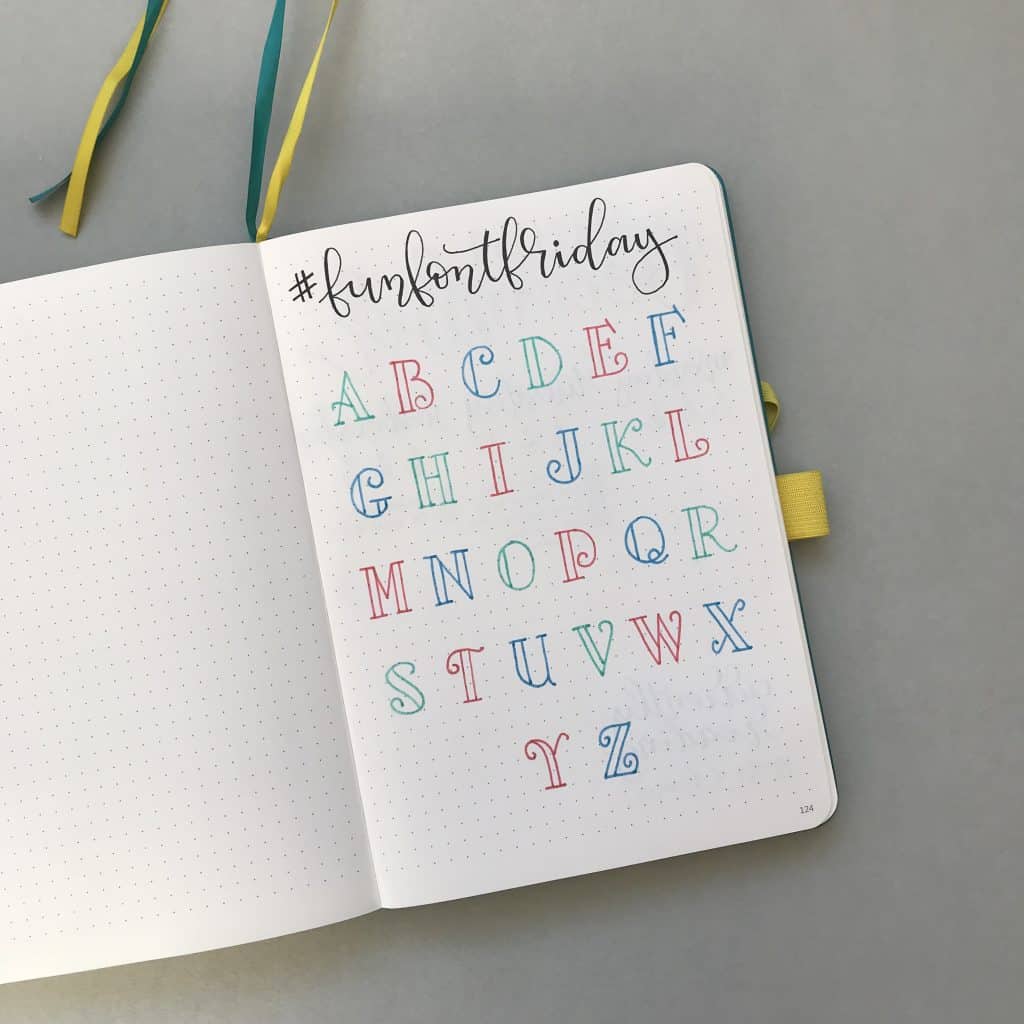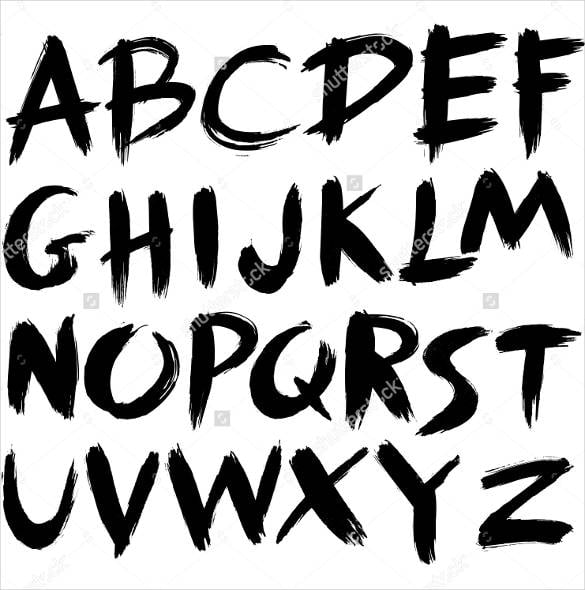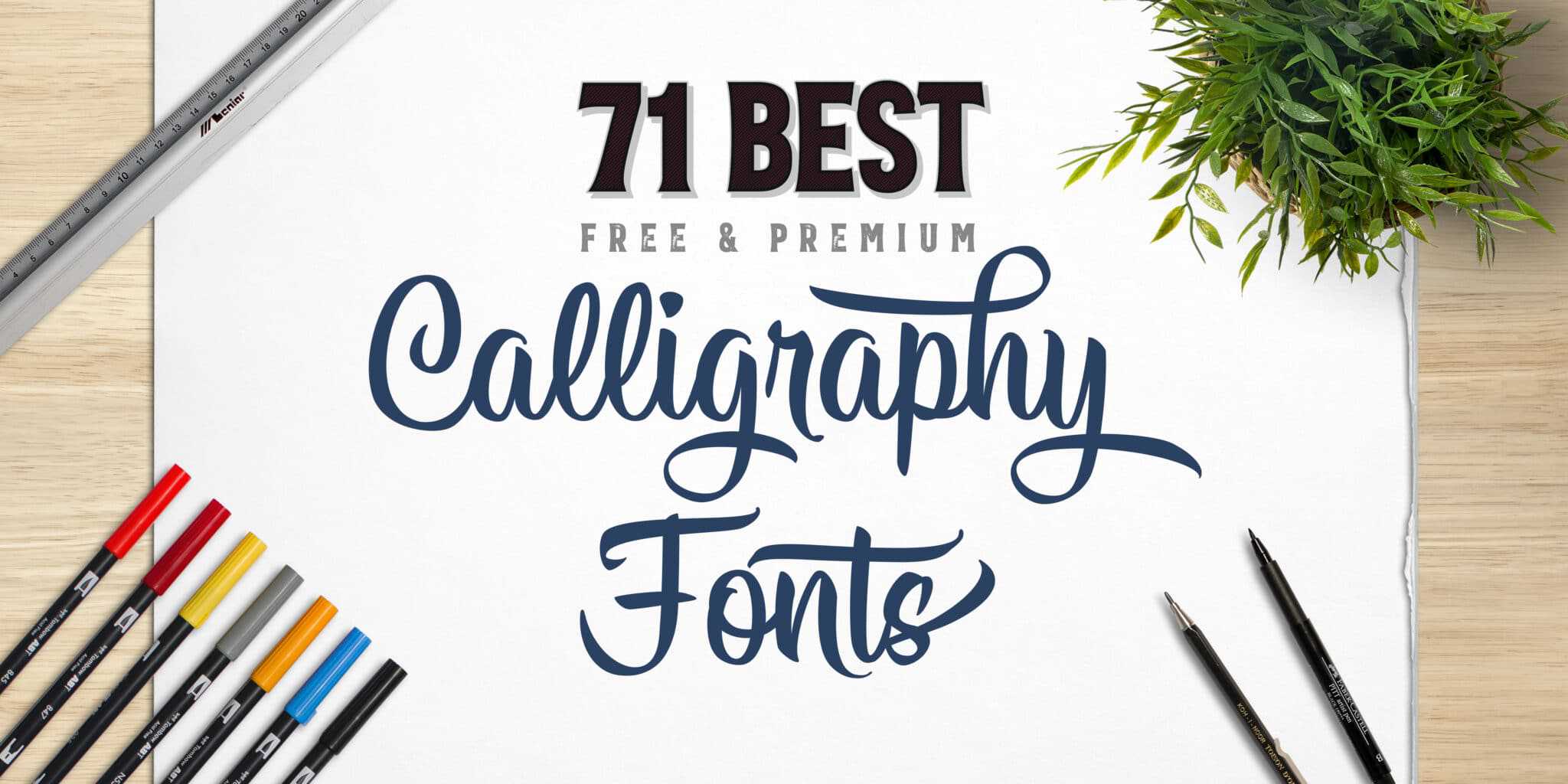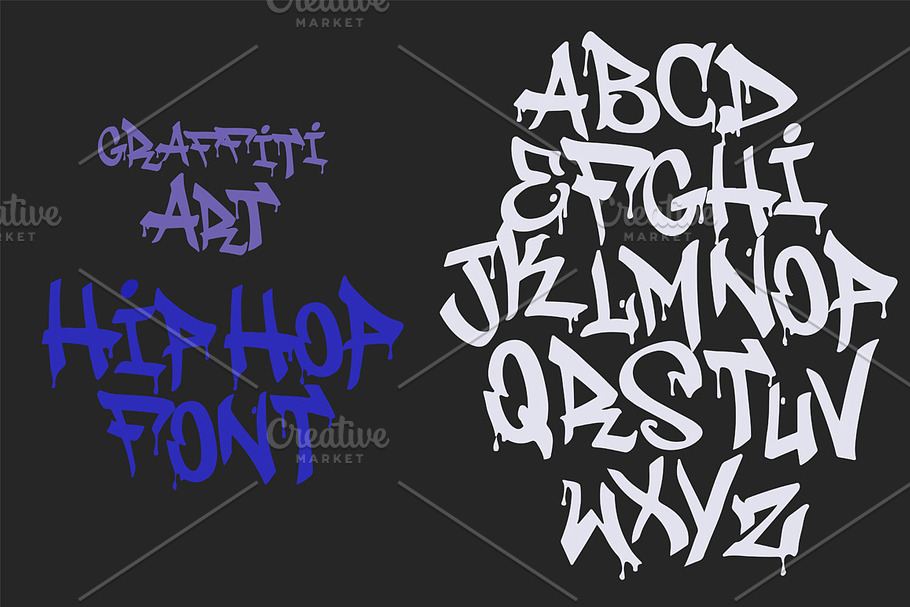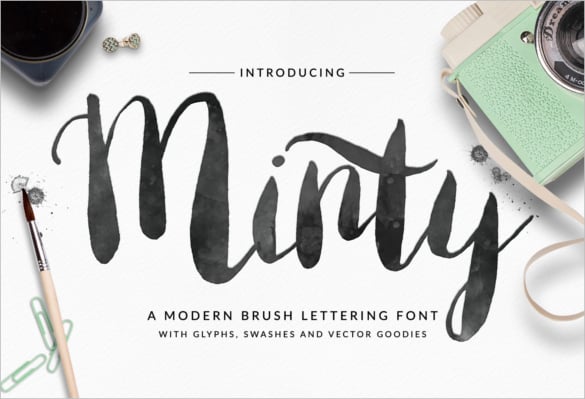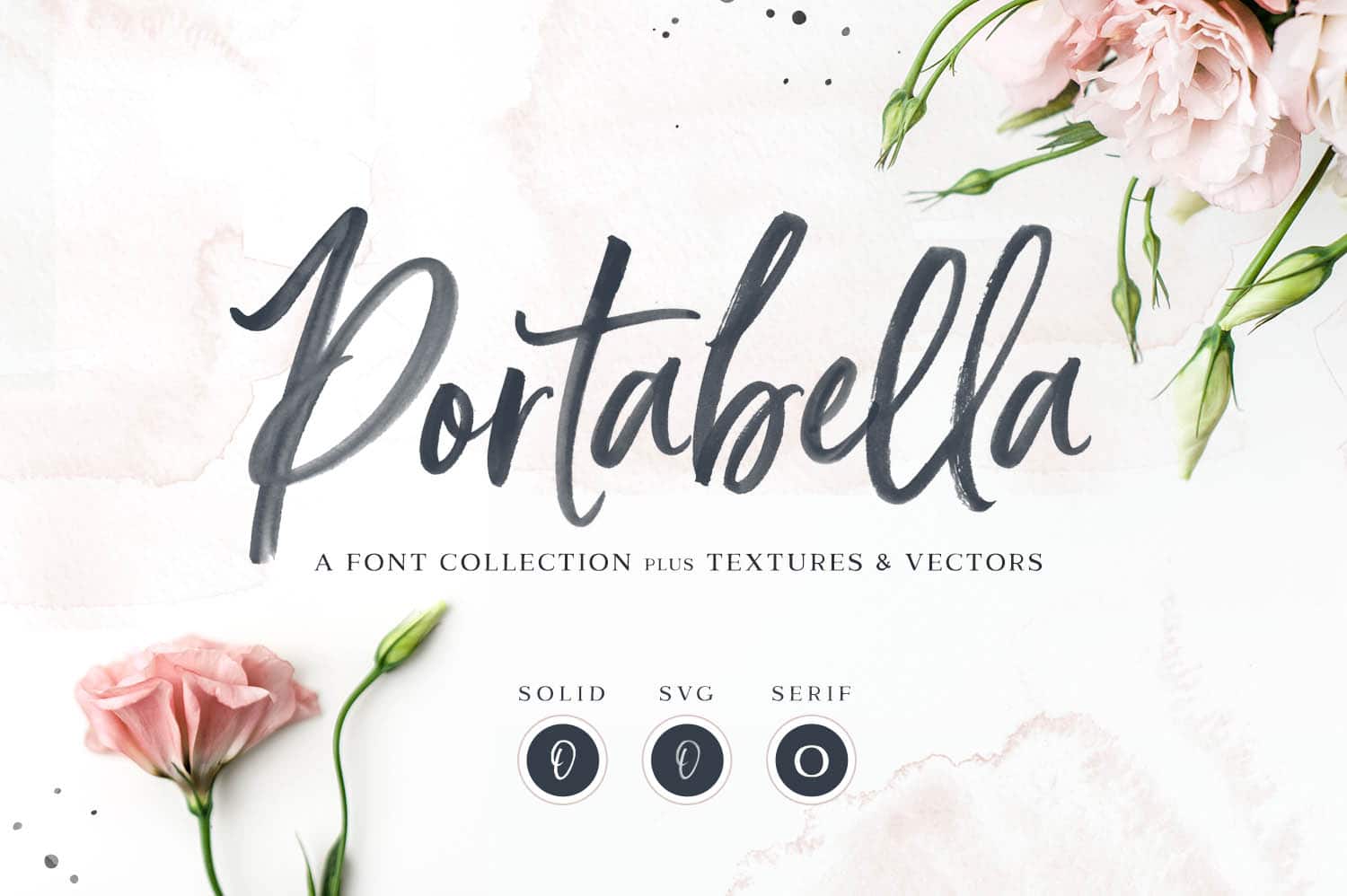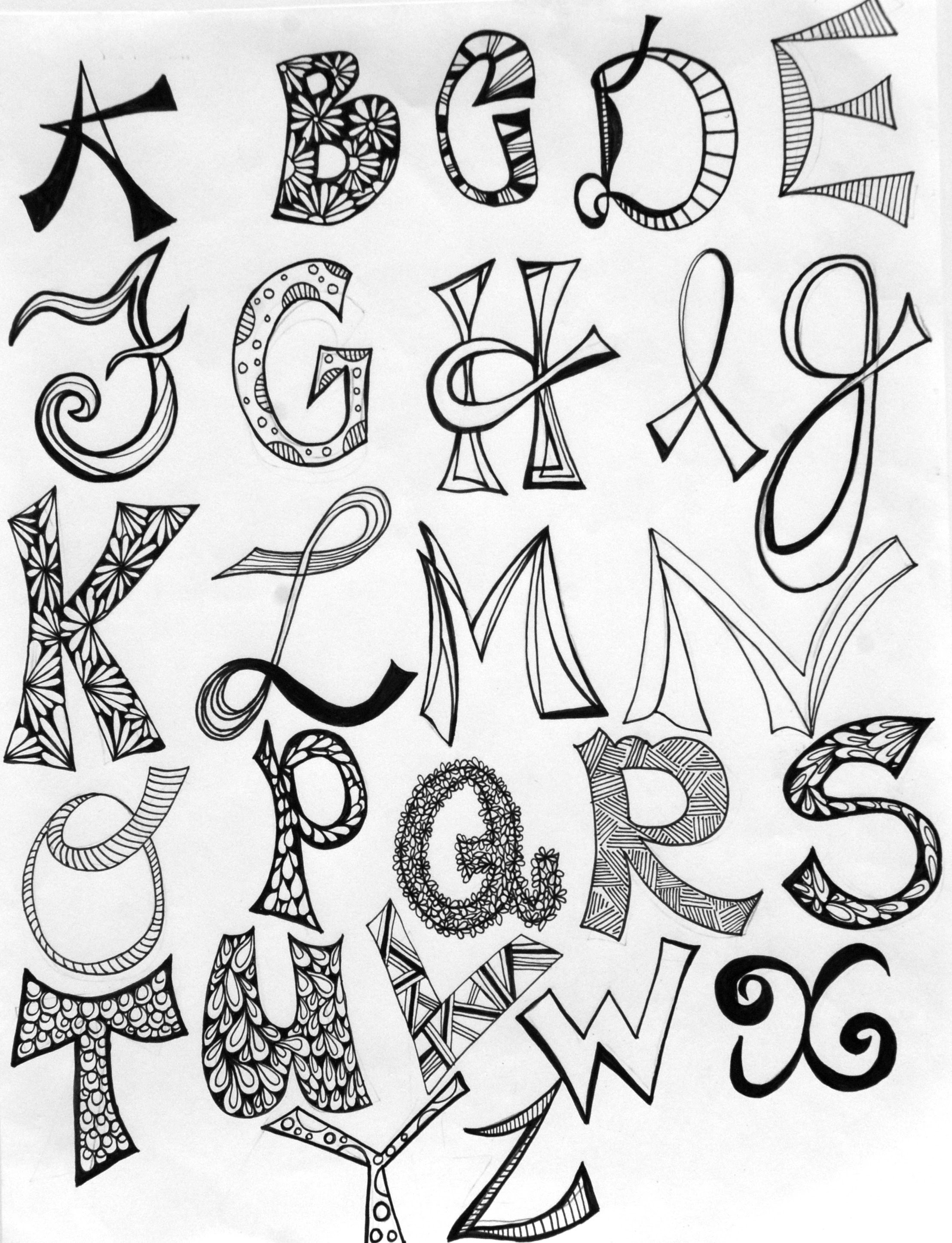
20 Handmade vectors uppercase lowercase numeral punctuation and symbol. Arabic fonts are noted for their imperial classy flavor and you have in a wide range of cool styles today.
Calligraphy artsy cool fonts. Looking for Artsy Cursive Calligraphy fonts. It usually involves a nibbed pen or brush. Great Fonts Fancy Fonts Cool Fonts Calligraphy Fonts Typography Design Calligraphy Alphabet Font Alphabet Cursive Fonts 11 Free Spring Fonts Monmica Laser Metal Monoment Young Beautiful DJB Dear St.
Kelly Rosss board Artsy Fonts followed by 230 people on Pinterest. See more ideas about creative lettering doodle lettering fonts. Alphabet calligraphy fonts beautiful handwriting brush stroke japanese calligraphy fonts bullet journal fonts calligraphy title ideas calligraphy abcs in different fonts calligraphy abcd in different fonts calligraphy aesthetic cool fonts calligraphy aesthetic fonts dafont calligraphy aesthetic fonts on google docs calligraphy alphabet.
1 We Lived Happily Ever After Lettersmith Octavia Script Helena Alice Calligrapheez Wanderlust Letters CraftyScript Provence PART 2. Permalink to these settings. Feb 21 2019 - Explore Teresa Lingerfelts board Artsy on Pinterest.
Burgues Script created by Alejandro Paul is a typical font family of calligraphy style. Every font is free to download. Click to find the best 523 free fonts in the Artsy style.
The main sub-styles are traditional calligraphy and modern. Free calligraphy fonts So whats inside. The writing is readable but is usually extravagant and embellished with flourishes.
As this page shows calligraphy looks expressive and beautiful it is widely used in wedding invitations and event invitations and calligraphy also has a large number of enthusiasts. Click to find the best 95 free fonts in the Artistic style. They are organized into highly regular formal types similar to cursive writing and looser more casual scripts.
According to the designer the font is an ode to the late 19 th century American calligrapher Louis Madarasz known as the most skillful penman the world has ever known. Aug 8 2017 - Explore Nadine Defensors board Calligraphy Practice followed by 145 people on Pinterest. It is the design and execution of lettering with a broad tip instrument brush or other writing instruments.
For the best effect you can go for the Arabic calligraphy fonts while if you are looking for something cutting edge there can be no alternative to 3D Arabic fonts. Looking for Artsy fonts. I party with these blogs.
The height of calligraphy was reached in the middle age where monks developed the narrow writing style called gothic allowing more words to fit on a single line as paper was expensive at the time. Calligraphy Generator calligraphy is a visual art related to writing. Click to find the best 76 free fonts in the Artsy Cursive Calligraphy style.
Calligraphy is an artistic writing style where the pressure is varied to create thick and thin lines all in a single stroke. Calligraphy fonts are widely used in wedding event invitations original logo design religious art films TV etc. The clean lines and elegance of Golden Age is the perfect choice for cool branding packaging and giving a personal charm to each project you use it for.
Click to find the best 85 free fonts in the Artsy Calligraphy style. Download Script typefaces Fonts are based upon the varied and often fluid stroke created by handwriting pretty much like the cursive fonts just typically more elegant. Looking for Artistic fonts.
Every font is free to download. Calligraphy is an ancient writing technique using flat edged pens to create artistic lettering using thick and thin lines depending on the direction of the stroke. See more ideas about lettering fonts hand lettering calligraphy letters.